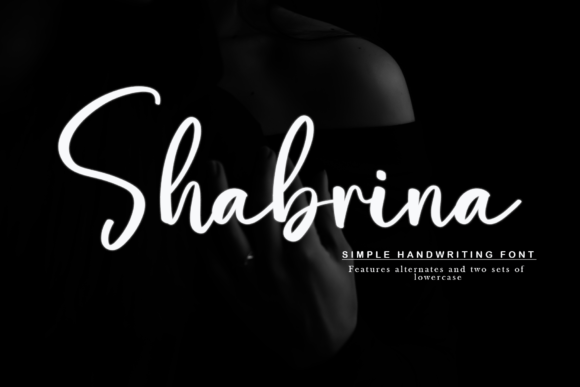
Introducing Shabrina Font, a beautifully crafted handwritten font that will captivate your audience and elevate your designs to new heights. With its graceful curves and elegant strokes, Shabrina is the perfect font for creating eye-catching logos, branding, quotes, and more.
Immerse yourself in the charm of Shabrina, a font that is both timeless and captivating. Each letter is lovingly crafted with a unique and beautiful touch, adding a touch of personality to every word. Shabrina's organic flow and natural feel will bring your designs to life, making them stand out from the crowd.
Unleash your creativity with Shabrina, the perfect font for expressing your unique style. Whether you're designing for iOS apps, branding your business, or creating stunning quotes, Shabrina will add a touch of sophistication and charm to your work.
With Shabrina, you can craft designs that resonate with your audience, leaving a lasting impression. Its versatile nature makes it suitable for a wide range of projects, from elegant wedding invitations to playful children's books.